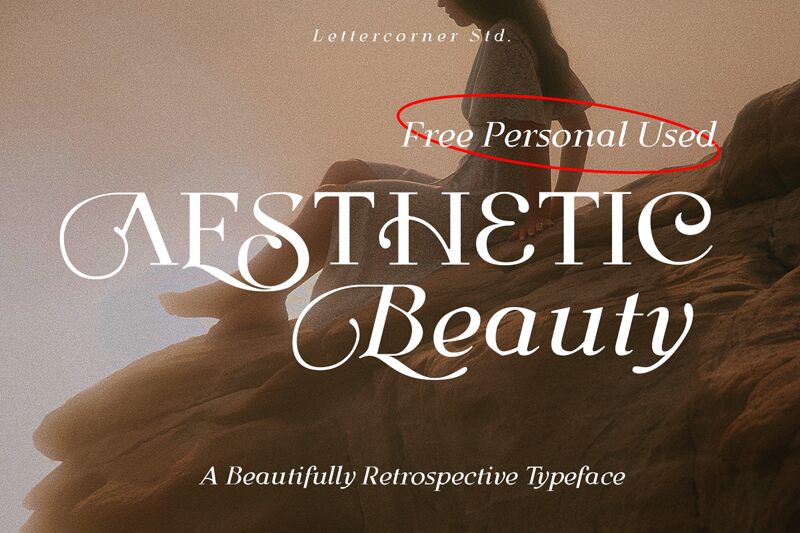
Aesthetic Beauty CF
Aesthetic Beauty CF font is a free serif font by Mocha Frappuccino. Exhibiting elegance, sophistication, and formality, Aesthetic Beauty CF boasts a traditional structure that makes it one boy-serious tool for the digital age. It’s timeless too – a quality attributed to its simple lines and almost equal width sections of its lines which create balance without being clunky, fixed, or forced.
Besides main text purposes such as content creation in magazines or websites targeting women who love beauty and fashion pieces – this letter set can also become your next most favorite character for logos on cosmetic containers/packaging designs; personal branding projects; photo watermarks etc!